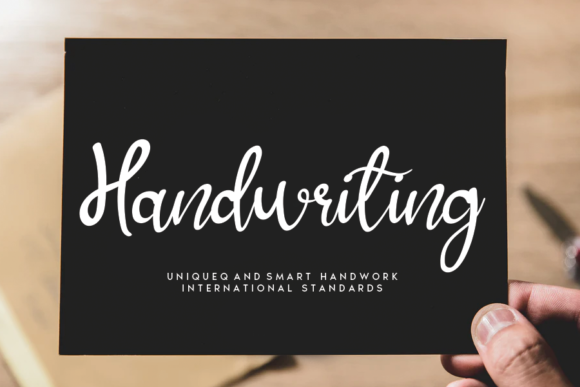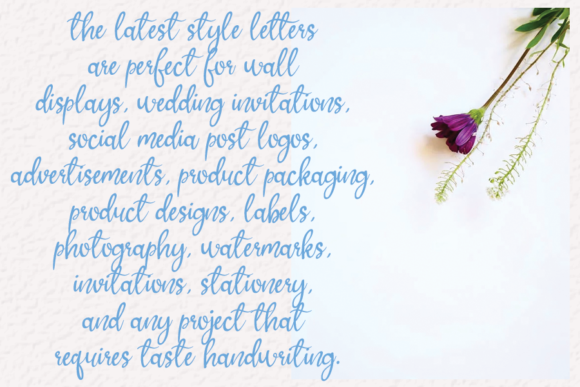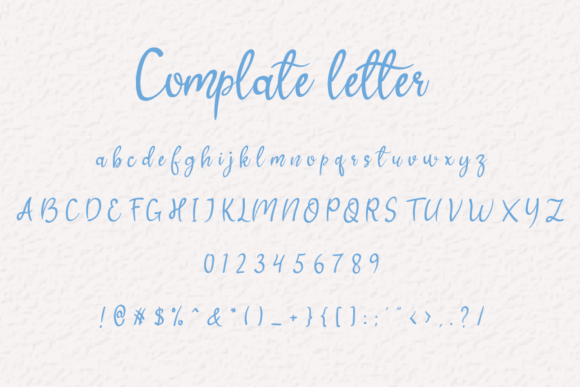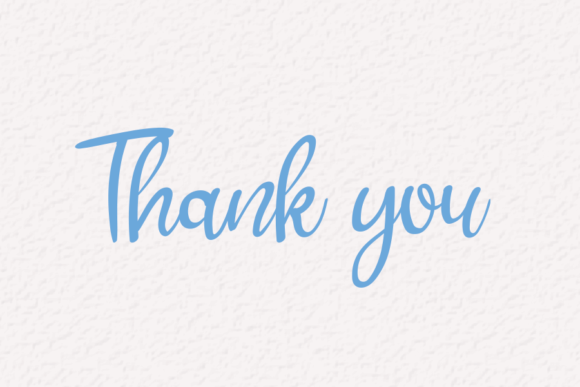
Introducing the Elegant Butterfly Font: Elevate Your Designs with a Touch of Sophistication
In the world of typography, a well-crafted font can make all the difference in elevating your designs from ordinary to extraordinary. For designers and crafters seeking a typeface that exudes elegance and refinement, look no further than the Butterfly Font. This exquisite handwritten font is masterfully designed to capture the essence of classy calligraphic influences while feeling contemporary and fresh.
The Beauty of Butterfly Font
Butterfly Font is a true masterpiece, boasting a unique blend of traditional and modern elements. Its handwritten nature gives it a personal and intimate feel, making it perfect for designs that require a touch of warmth and sophistication. The font’s classy calligraphic influences are evident in its flowing lines and delicate strokes, which evoke a sense of luxury and refinement.
One of the standout features of Butterfly Font is its versatility. Whether you’re working on a wedding invitation, a branding project, or a digital platform, this font is sure to impress. Its clean and crisp lines make it highly legible, even at smaller sizes, ensuring that your message is conveyed with clarity and style.
Why Fall in Love with Butterfly Font?
So, what sets Butterfly Font apart from other typefaces? Here are just a few reasons why designers and crafters are falling in love with this exquisite font:
• Unique and distinctive: Butterfly Font boasts a one-of-a-kind design that will set your projects apart from the crowd.
• Elegant and refined: Its classy calligraphic influences give it a sophisticated feel that’s perfect for high-end designs.
• Versatile: Use it for a wide range of projects, from wedding invitations to branding and digital platforms.
• Easy to read: Its clean and crisp lines make it highly legible, even at smaller sizes.
Bring Your Projects to the Highest Levels
With Butterfly Font, you can take your designs to new heights. Its sophisticated and elegant feel makes it perfect for:
• Wedding and event invitations: Add a touch of luxury and refinement to your wedding invitations, save-the-dates, and other event materials.
• Branding and packaging: Elevate your brand with a sophisticated typeface that exudes elegance and refinement.
• Digital platforms: Use Butterfly Font to create stunning digital content, such as social media graphics, blog headers, and more.
• Crafting and DIY projects: Add a personal touch to your crafting and DIY projects, such as handmade cards, gift tags, and more.
Get Ready to Fall in Love
In conclusion, Butterfly Font is a true gem in the world of typography. Its exquisite design, elegant feel, and versatility make it a must-have for designers and crafters seeking to elevate their projects. Whether you’re working on a wedding invitation, a branding project, or a digital platform, this font is sure to impress. So why wait? Fall in love with Butterfly Font and bring your projects to the highest levels!
• Exquisite handwritten font with classy calligraphic influences
• Unique and distinctive design
• Versatile and easy to read
• Perfect for wedding invitations, branding, digital platforms, and crafting projects
Font Name Butterfly Font